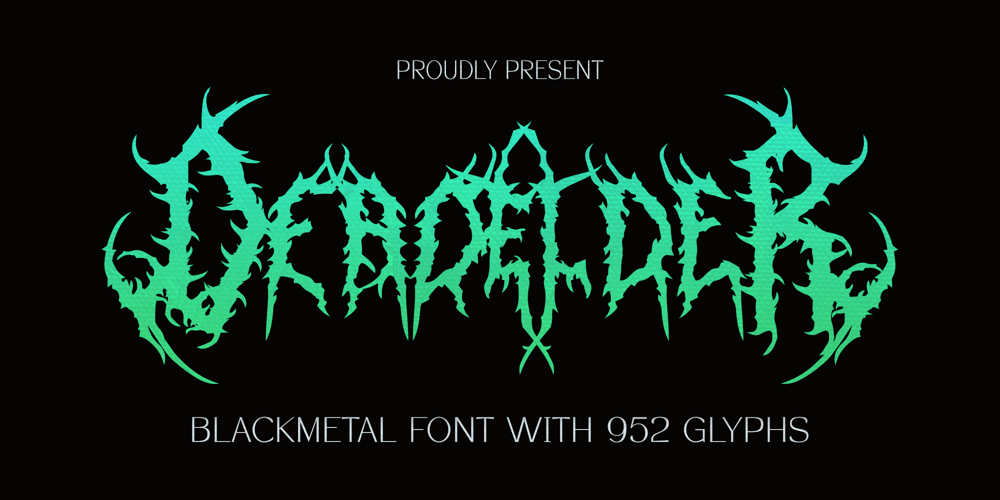
Dead Elder Metal Font Family was designed by Rachmad Bagus Fatchi and published by Studio Hello Good. Dead Elder Metal contains 1 styles and family package options. Dead Elder is a font that embodies the raw, visceral essence of death metal in every stroke and curve. With an astonishing array of 952 meticulously crafted glyphs, this font unleashes a dark, otherworldly energy that is perfect for conveying the macabre and relentless intensity of the death metal genre.